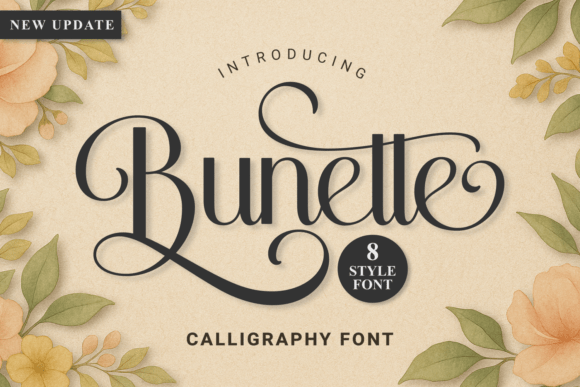
Introduction to Bunette Font
Bunette is a beautiful example of a modern calligraphy script font that highlights elegance, flow, and rich ornamental details, making it an ideal choice for designs that aim to convey a touch of luxury and beauty.
Key Features of Bunette Font